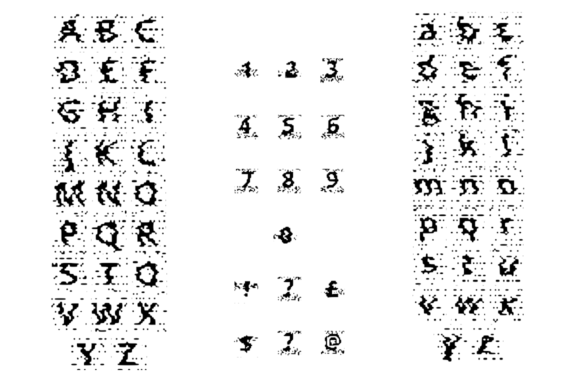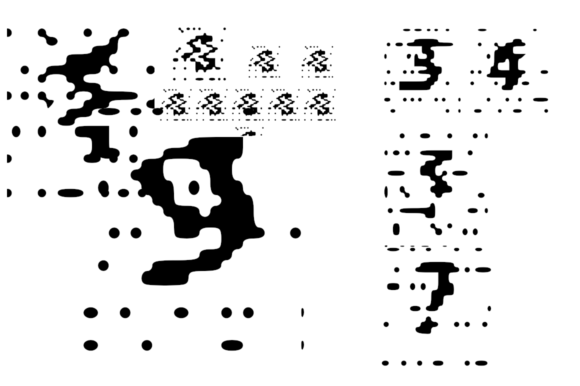
Introducing Glitch Interfere Font: The Ultimate Display Typeface for Glitch Art Lovers
Are you a hacker, web nerd, or glitch art enthusiast looking for a font that embodies the spirit of digital disruption? Look no further than Glitch Interfere Font, a cool display typeface that is sure to add a touch of edginess to your projects. This glitched font is designed to make a statement, with a distorted feel that is both eye-catching and thought-provoking.
What is Glitch Interfere Font?
Glitch Interfere Font is a unique display typeface that comes in both uppercase and lowercase versions. Its glitched design gives it a distinctive, distorted look that is reminiscent of digital errors and system failures. This font is perfect for designers and crafters who want to add a touch of digital chaos to their work.
Key Features of Glitch Interfere Font
- Glitched Design: Glitch Interfere Font features a distorted, glitched design that gives it a unique and eye-catching look.
- Uppercase and Lowercase Versions: This font comes in both uppercase and lowercase versions, making it versatile and easy to use.
- Distorted Feel: The font’s distorted feel makes it perfect for designs that require a touch of digital disruption.
Who is Glitch Interfere Font for?
Glitch Interfere Font is ideal for:
- Hackers: If you’re a hacker looking for a font that reflects your love of digital disruption, Glitch Interfere Font is the perfect choice.
- Web Nerds: Web developers and designers will love this font’s glitched, digital look.
- Glitch Art Lovers: If you’re a fan of glitch art, you’ll appreciate the unique, distorted design of Glitch Interfere Font.
- Designers: Designers looking for a font that will add a touch of edginess to their work will love Glitch Interfere Font.
- Crafters: Crafters who want to add a digital touch to their projects will find Glitch Interfere Font to be a great choice.
- Use it as a Display Font: Glitch Interfere Font is designed to be used as a display font, so use it to add a touch of drama to your headings and titles.
- Experiment with Different Sizes: The font’s distorted design looks great at large sizes, but it can also be used at smaller sizes to add a touch of texture to your designs.
- Pair it with Other Fonts: Glitch Interfere Font looks great when paired with other fonts, so don’t be afraid to experiment with different font combinations.
Benefits of Using Glitch Interfere Font
There are many benefits to using Glitch Interfere Font, including:
- Unique Design: Glitch Interfere Font has a unique, distorted design that will set your work apart from others.
- Versatile: Glitch Interfere Font comes in both uppercase and lowercase versions, making it versatile and easy to use.
Glitch Interfere Font is a cool display typeface that is perfect for designers and crafters who want to add a touch of digital disruption to their work. Its glitched design and distorted feel make it a great choice for hackers, web nerds, and glitch art lovers. With its ease of use and versatility, Glitch Interfere Font is sure to become a favorite font in your collection.